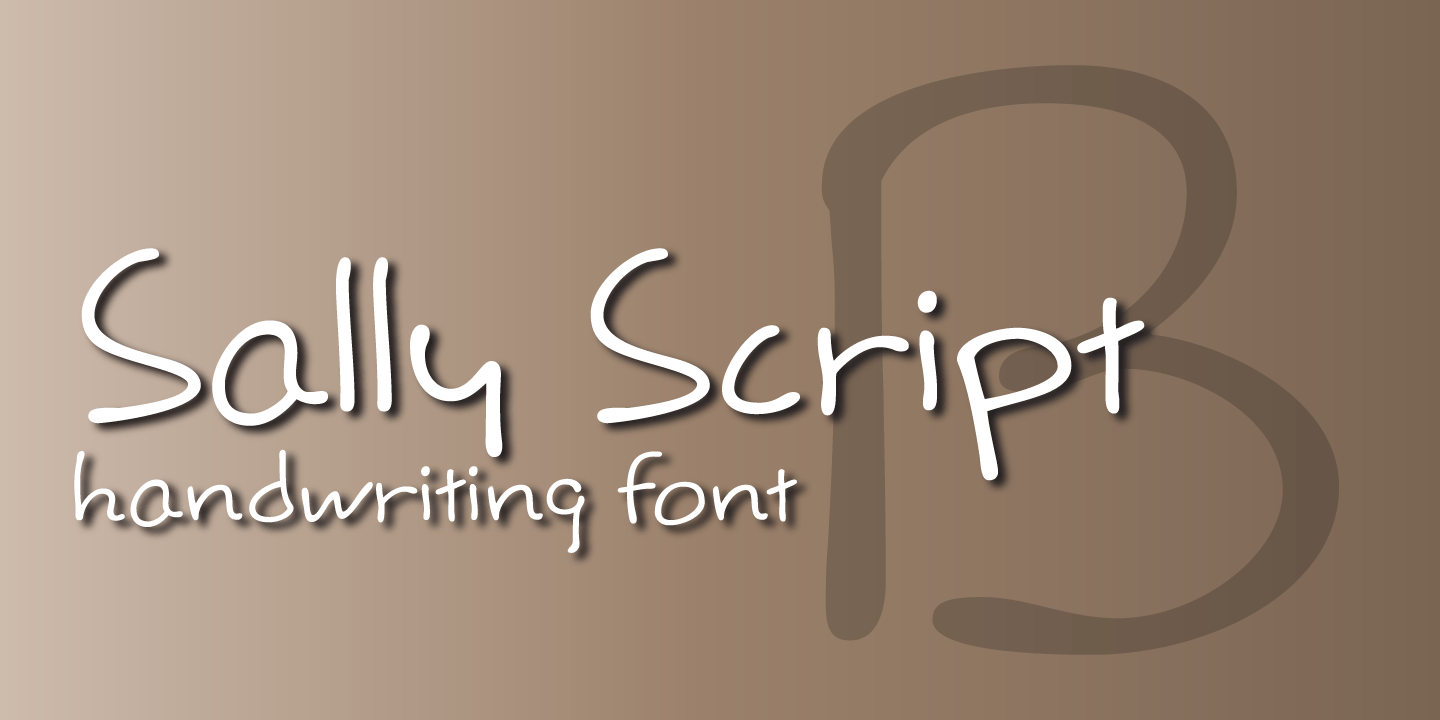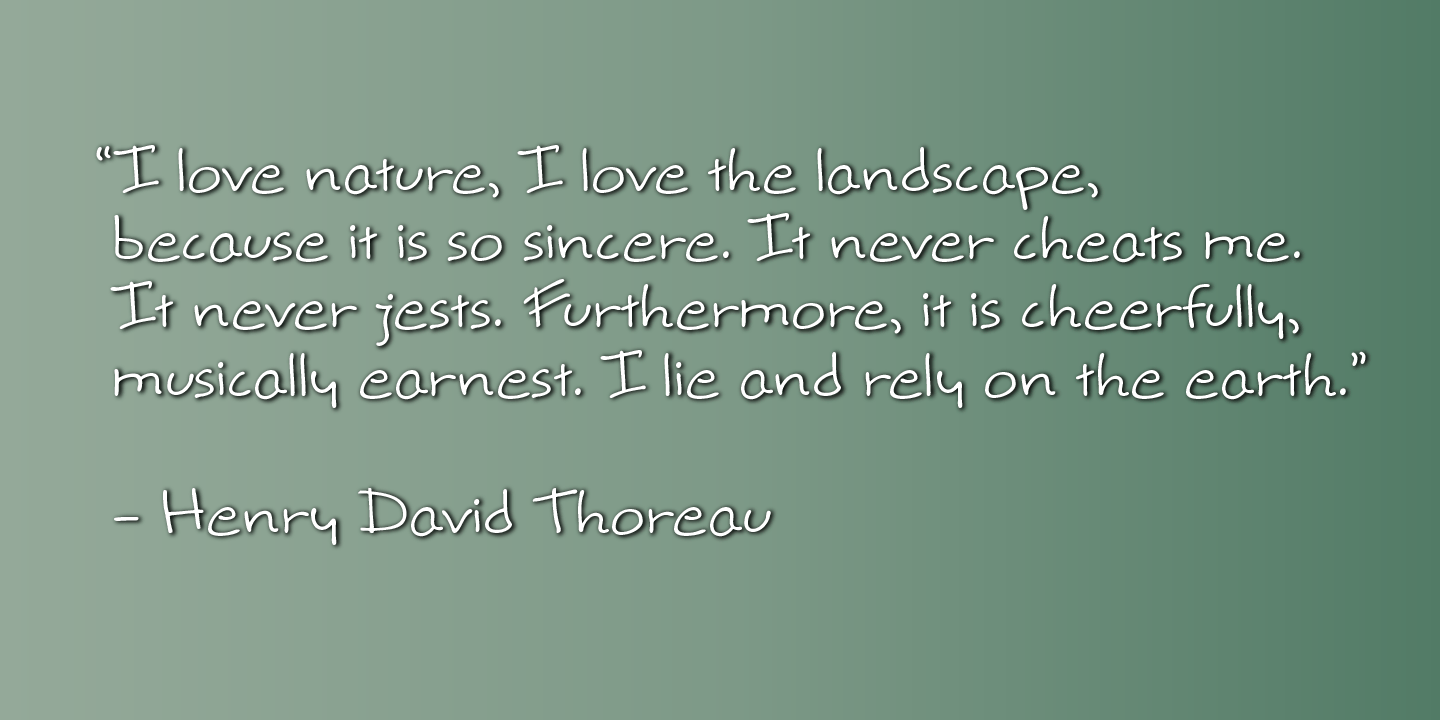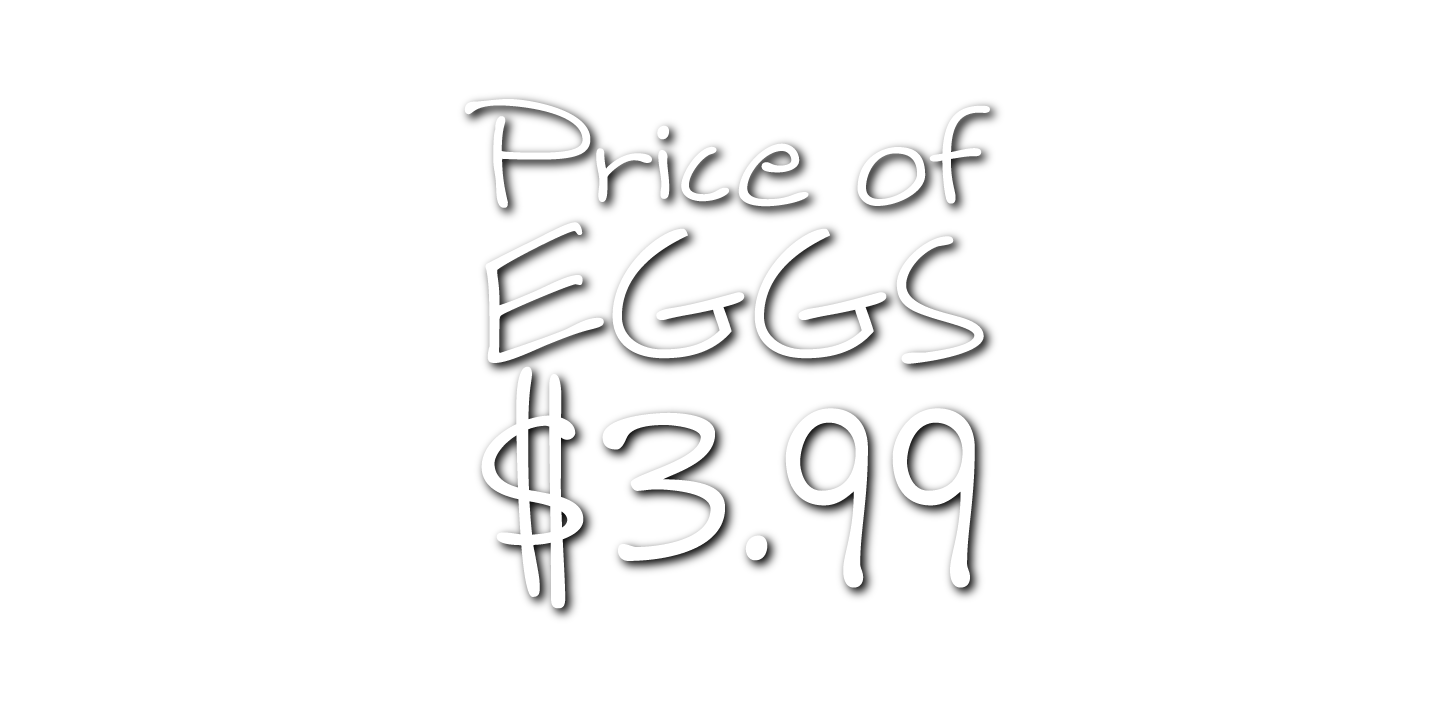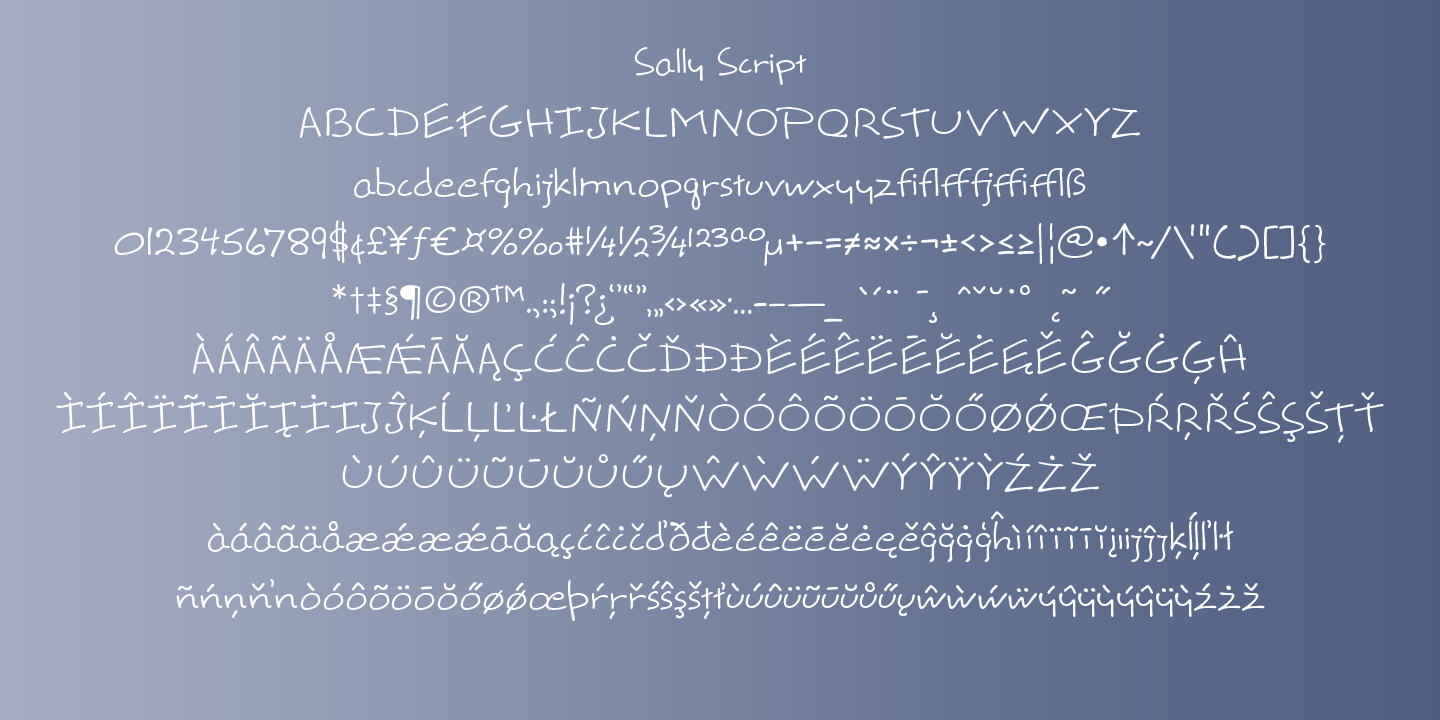
Sally Script
Font Family by BluHead Studio
Buy NowSally Script is the third of our series of handwriting fonts, this one based on the handwriting of yet, another landscape designer. It is definitively NOT architectural in nature, and that's exactly where it delivers the charm! This fun design has a round, open feel which lends itself to conveying warm messages for that personal touch in cards, journals, scrapbooking, etc. Plus, the character set includes support for many languages, along with some cool ligatures!